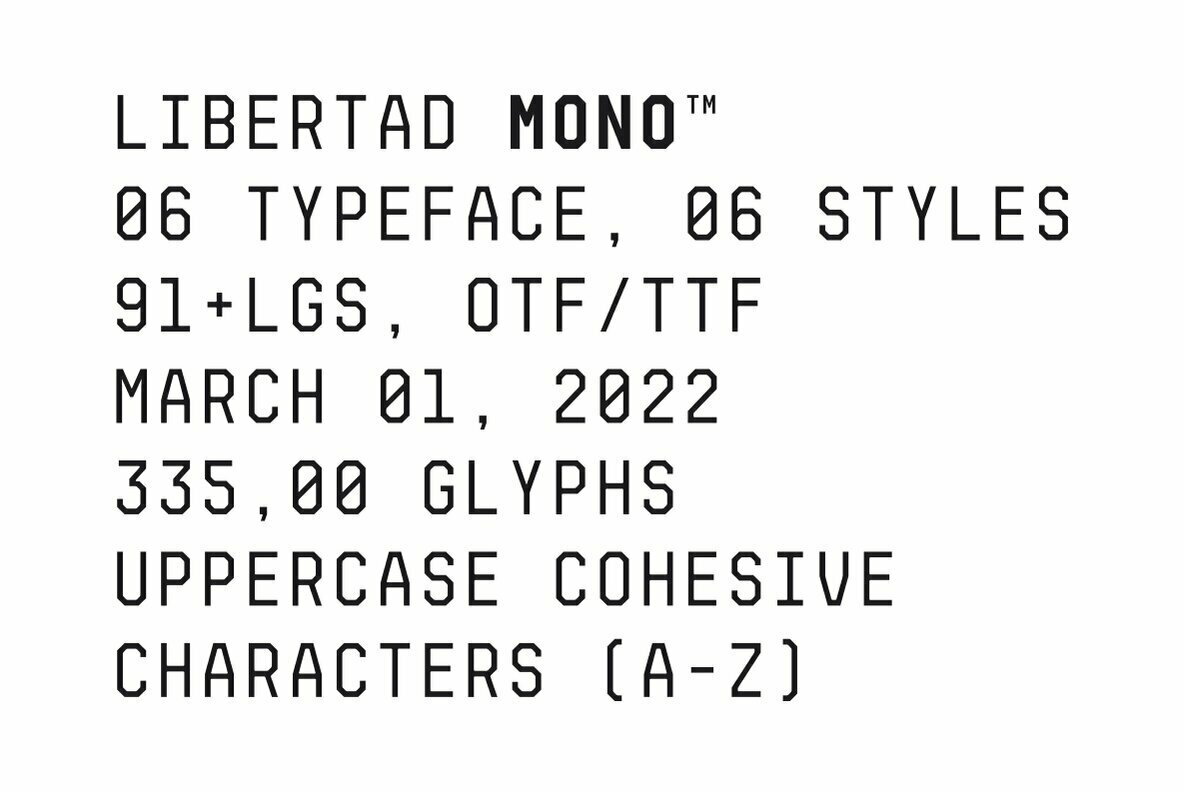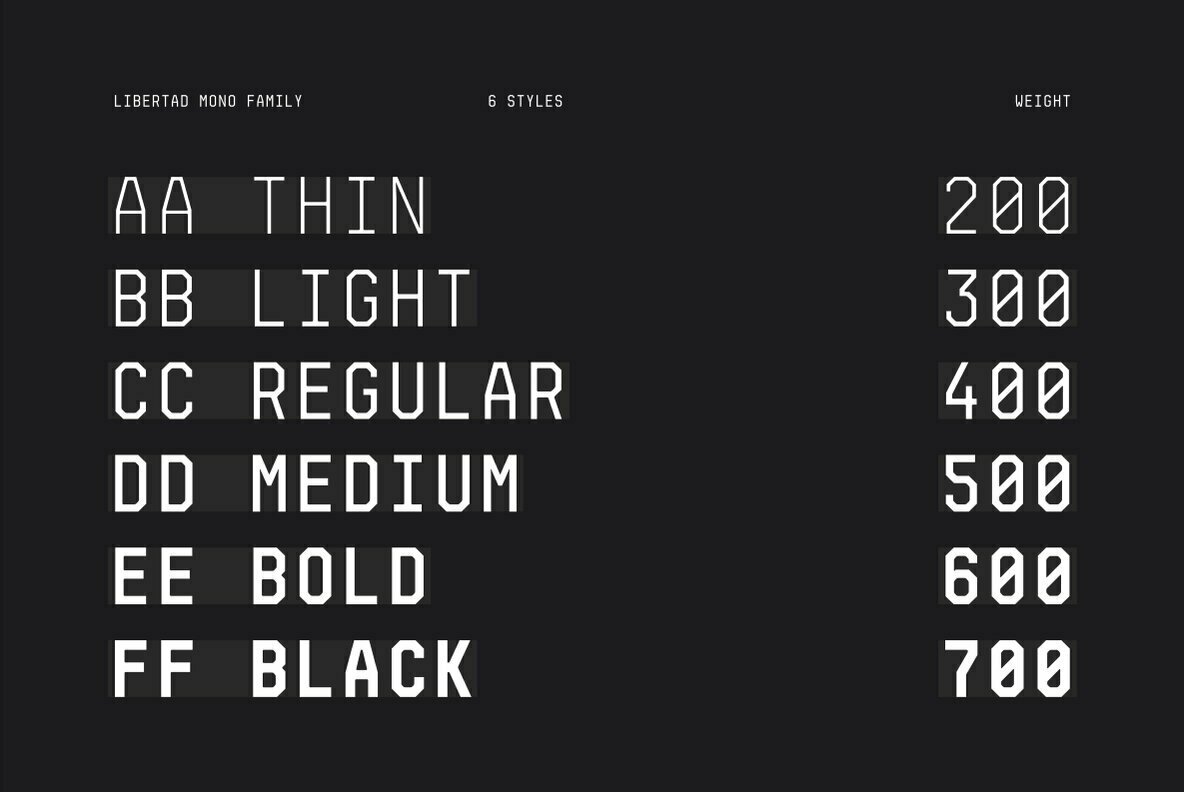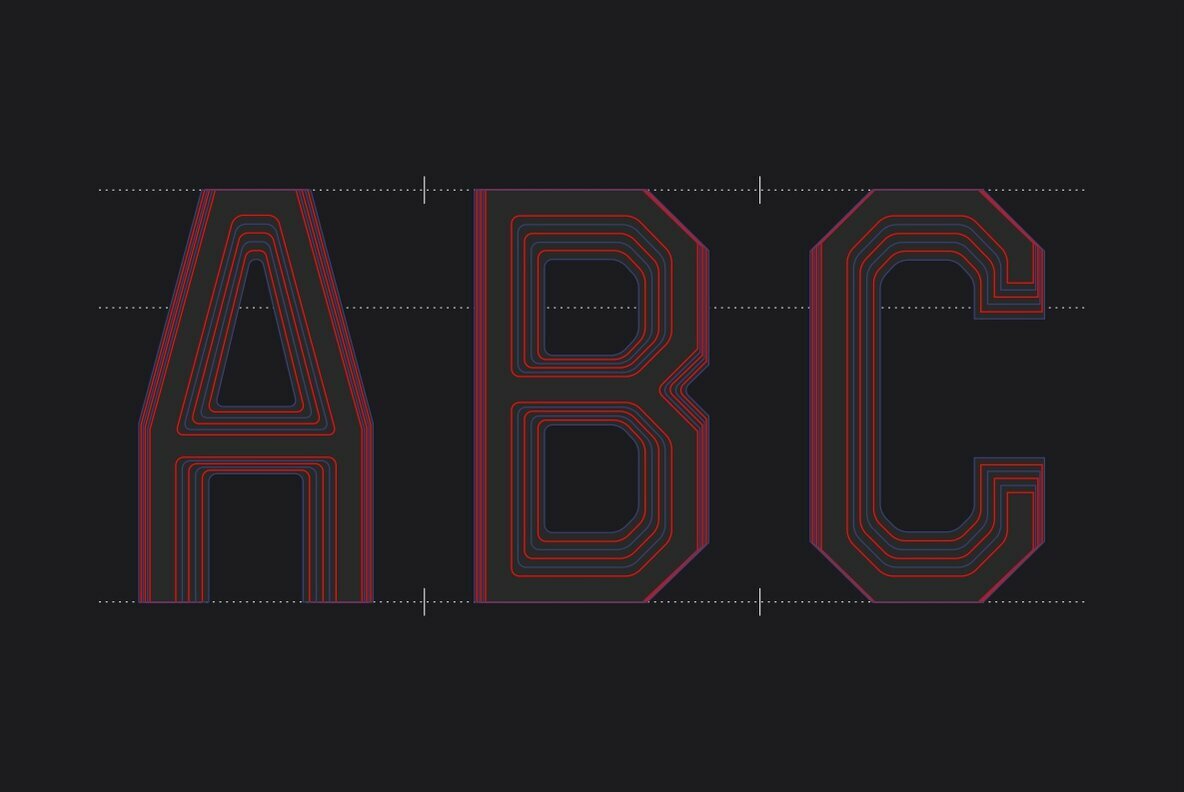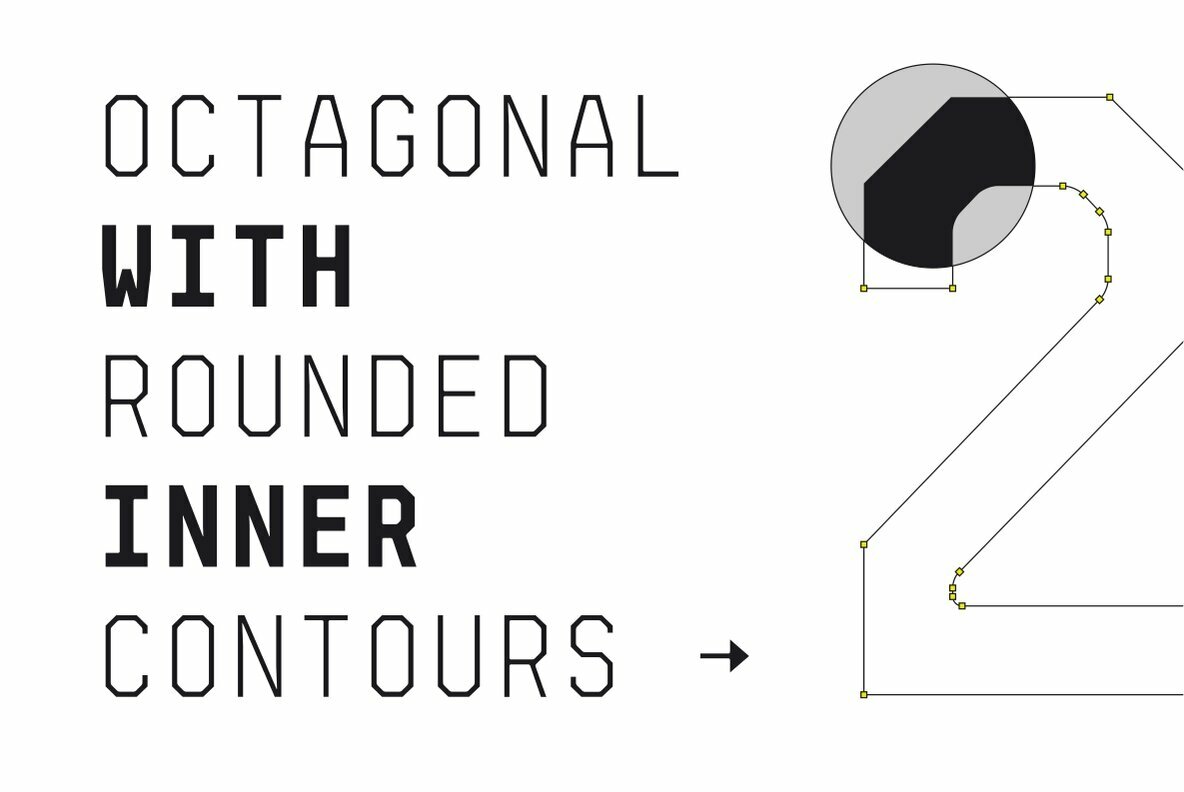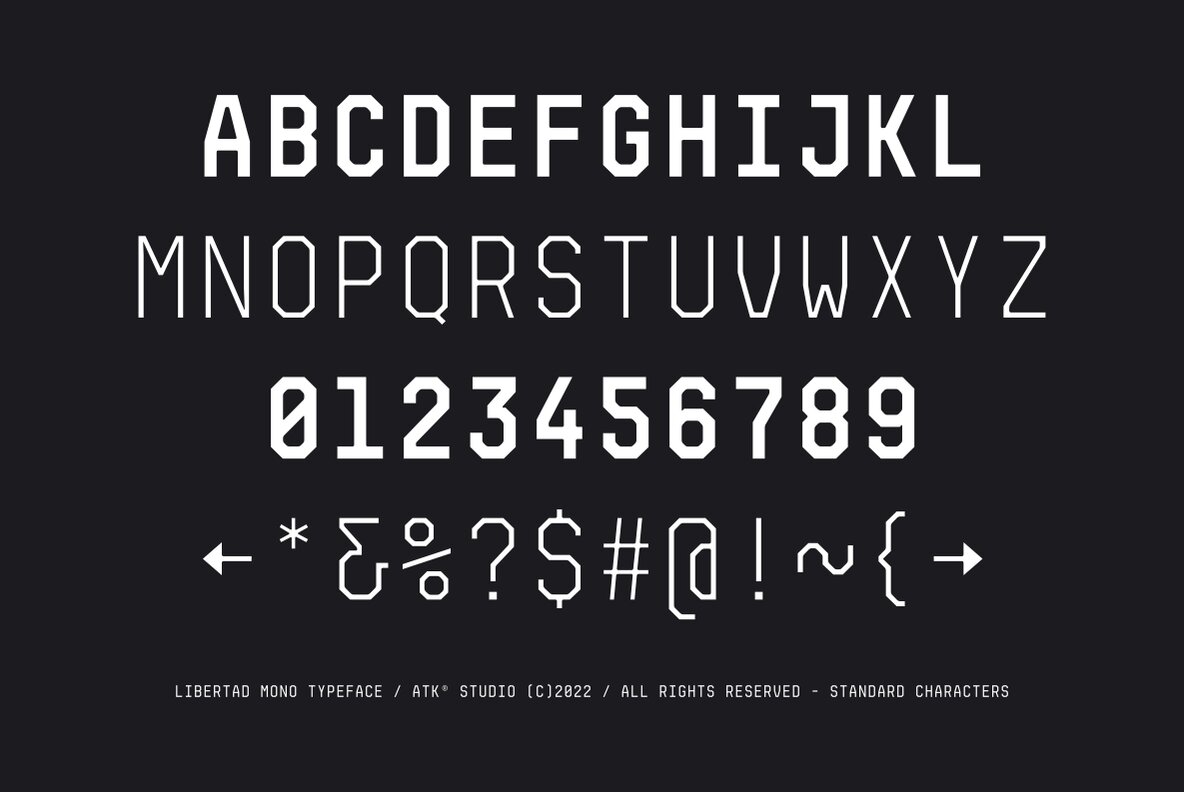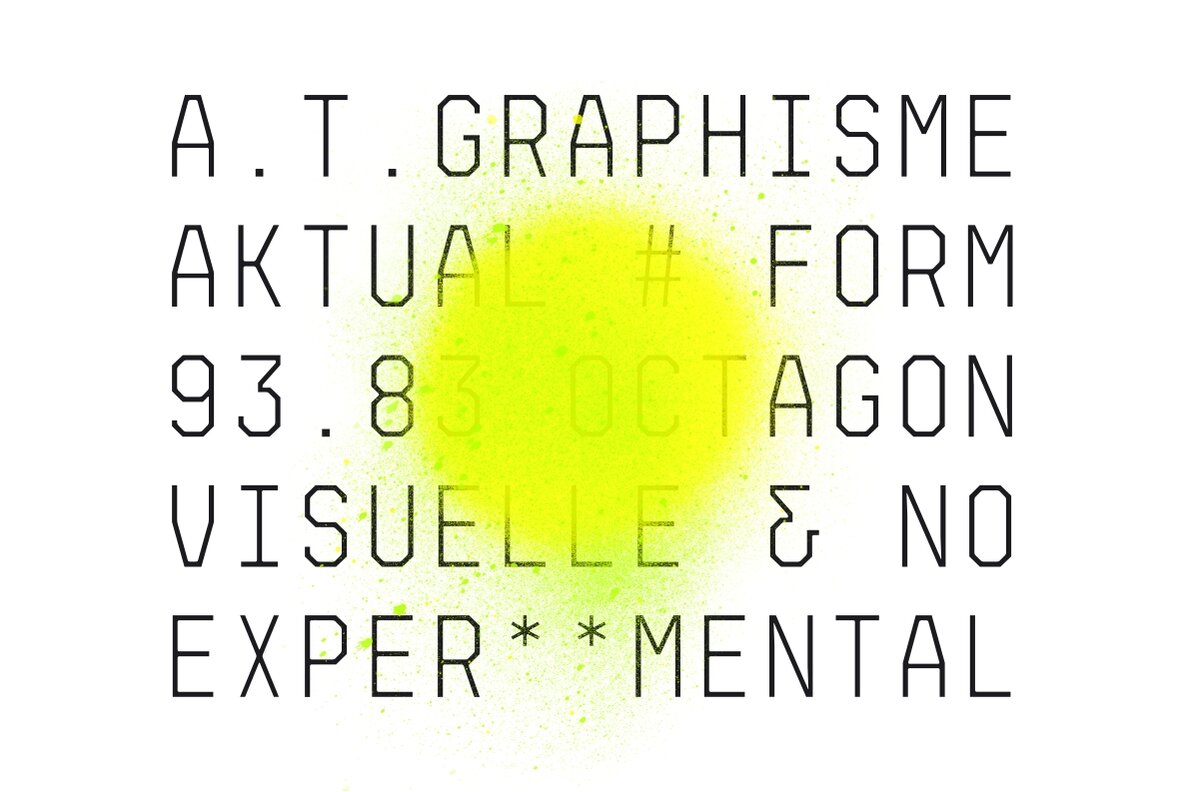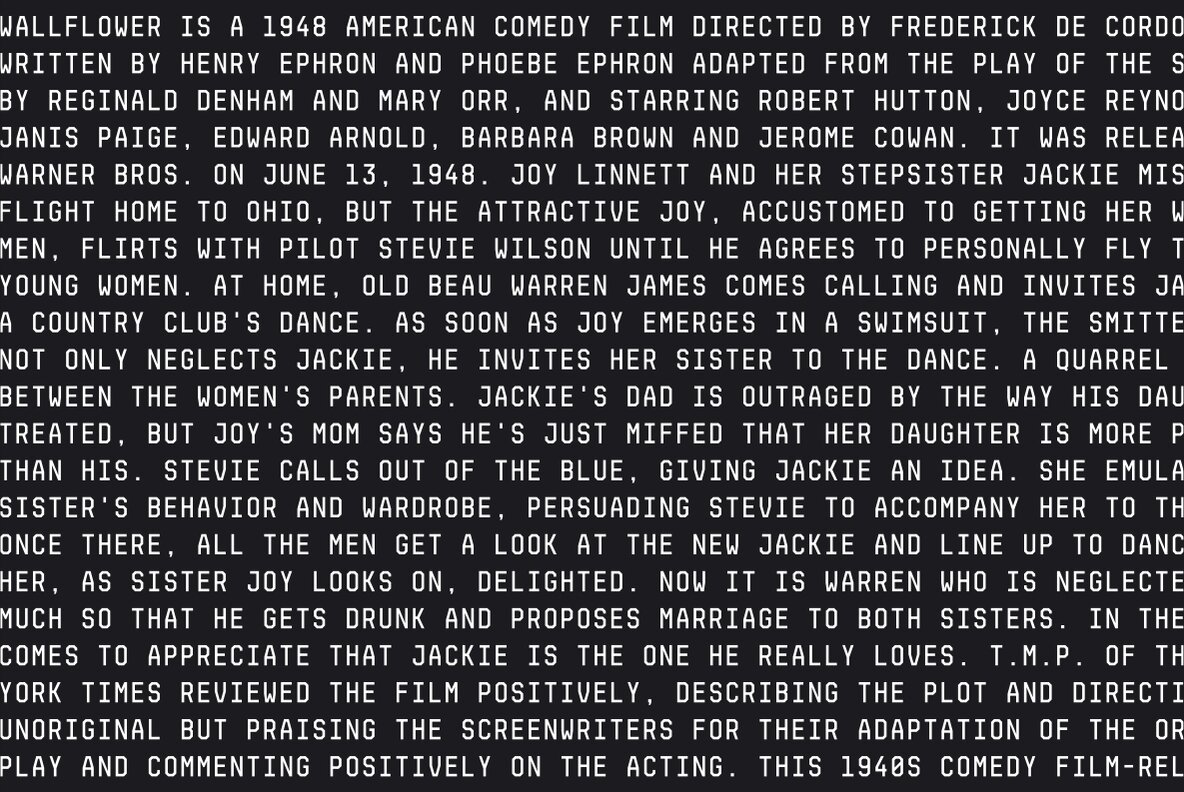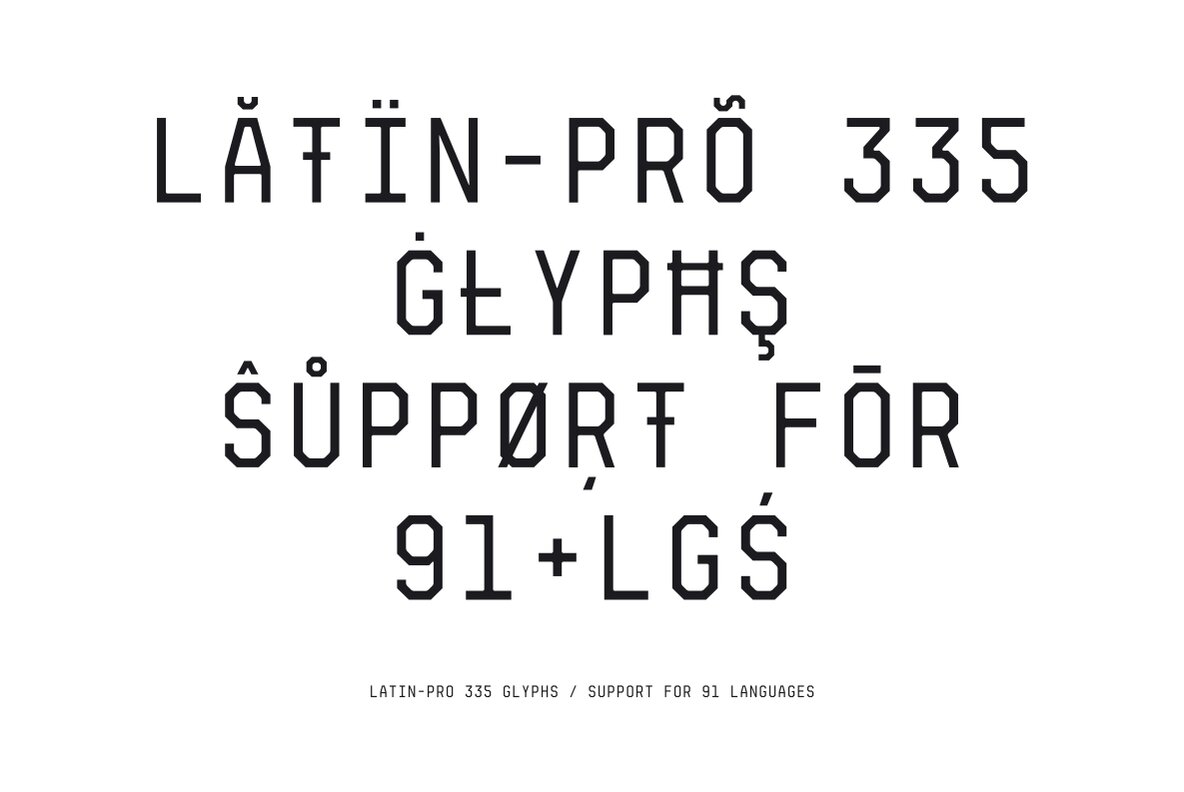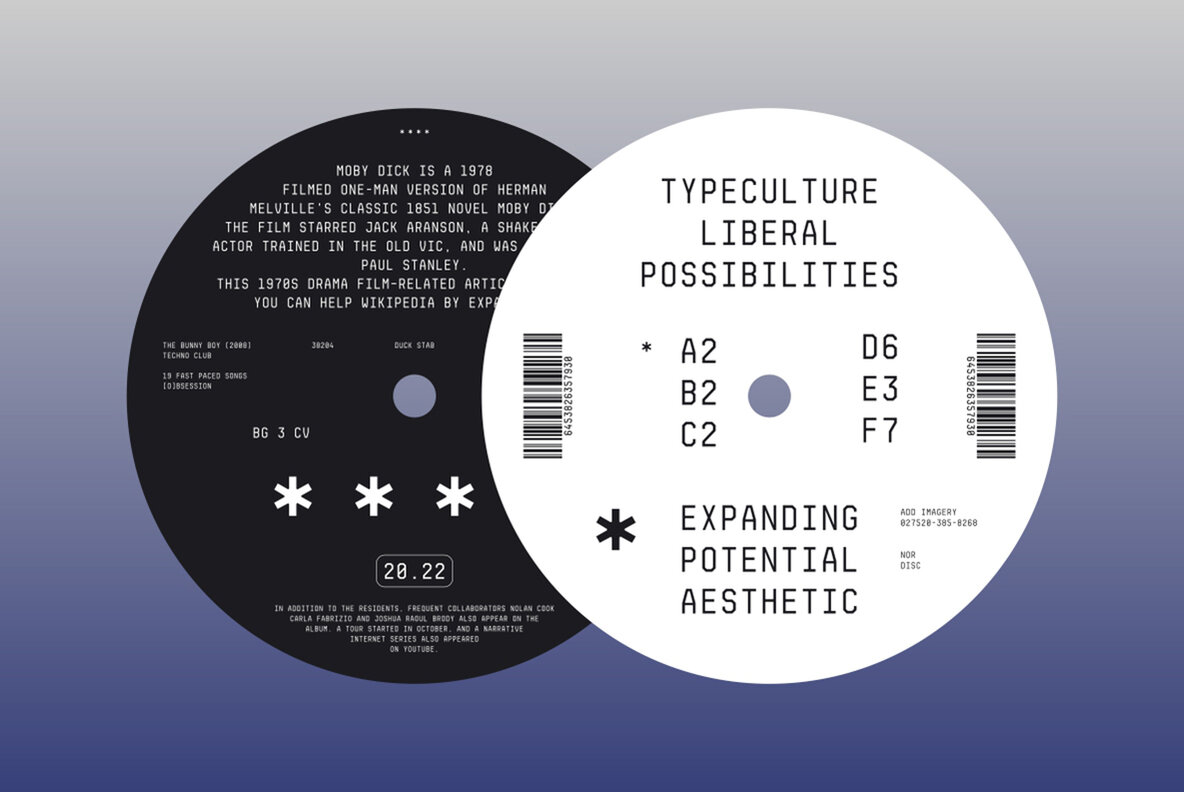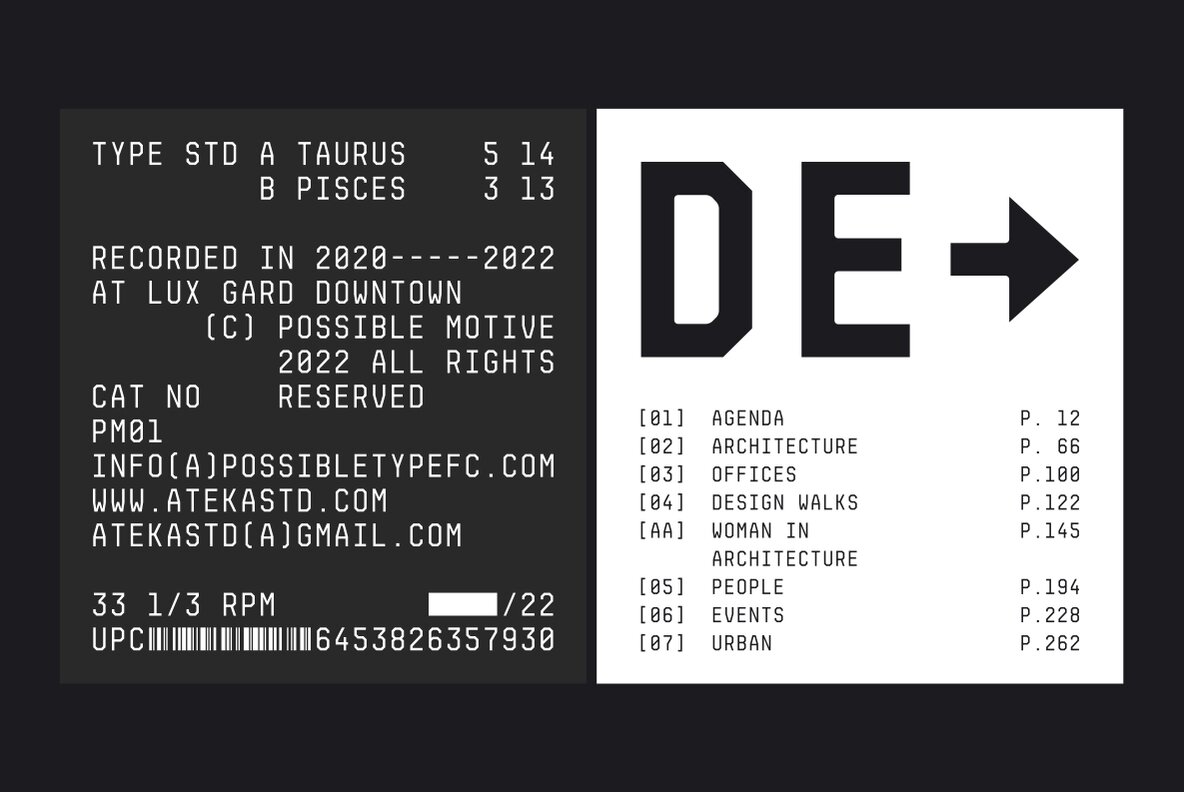
Libertad Mono Font
Libertad Mono is a tech display font with octagonal shape and rounded inner contours published by Radinal Riki Mutaqin.
ATK Studio is a type design practice founded in 2018 by Indonesian designer Radinal Riki. Based in Bandung, Indonesia, the studio focuses on experimental display and monospaced fonts, building a growing library of tech-inspired and unconventional typefaces. Known for its distinctive approach to letterform desi...